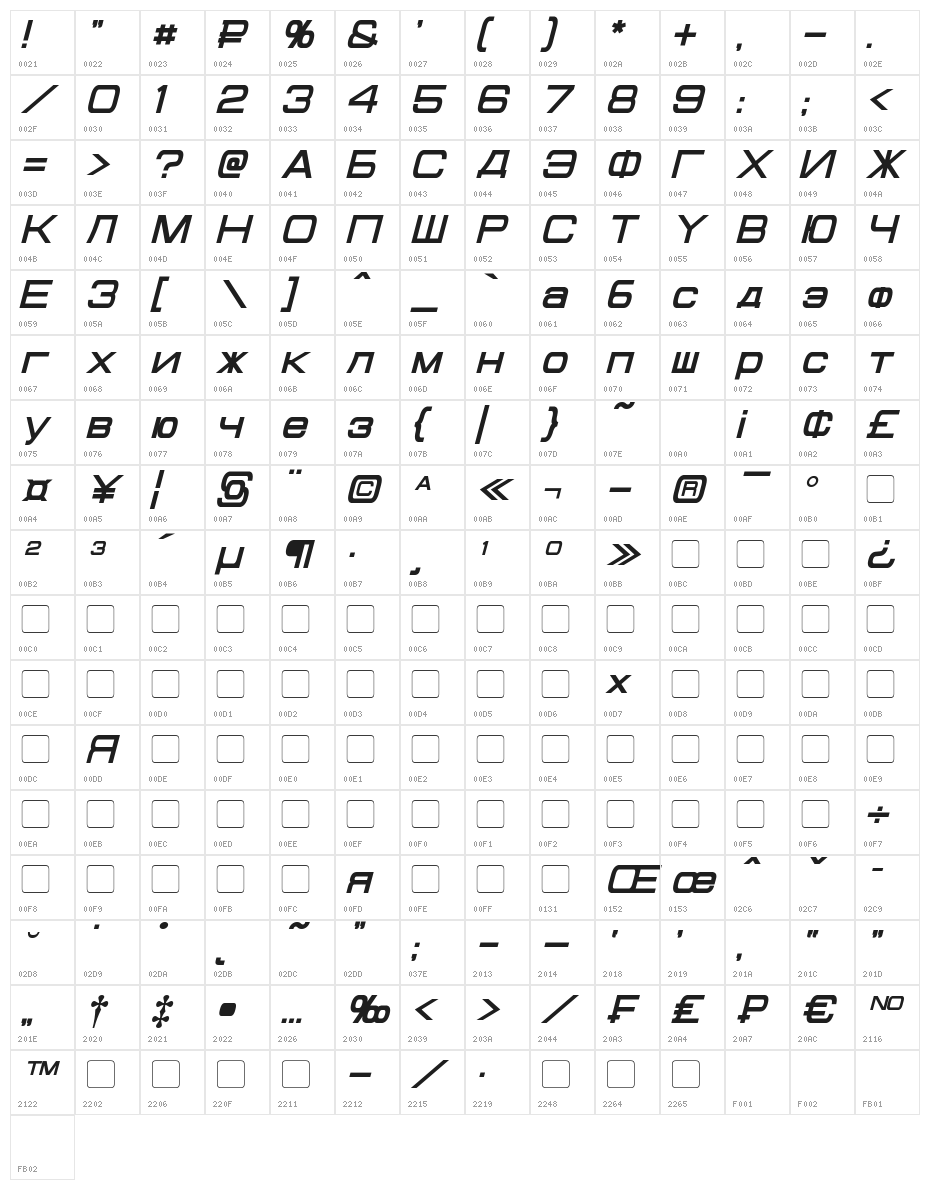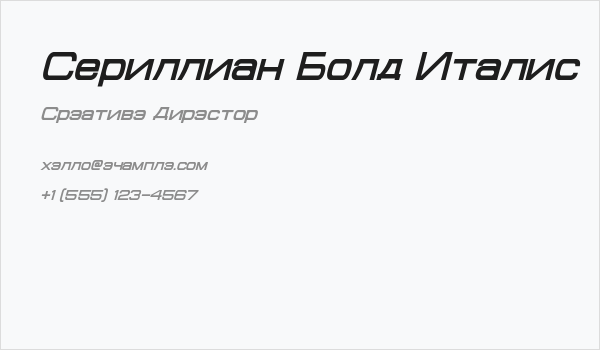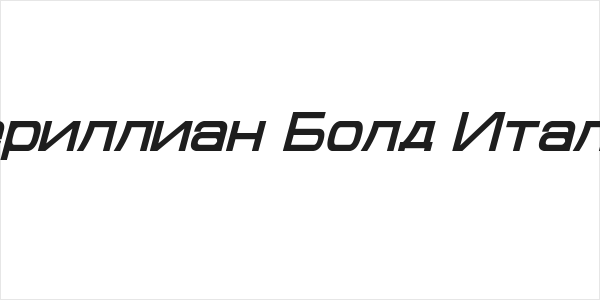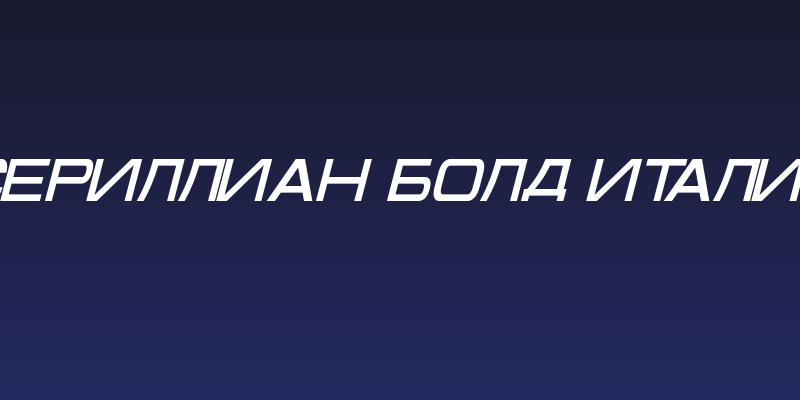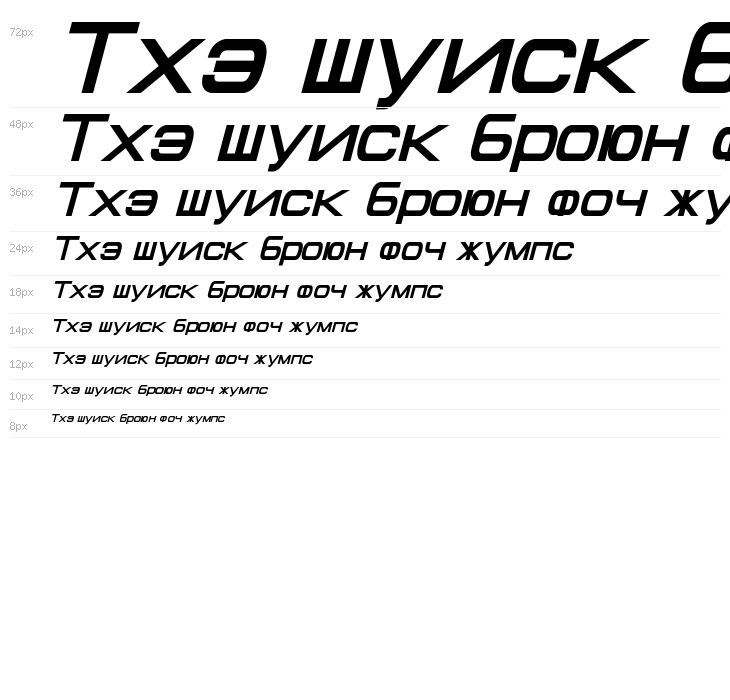
Cyrillian Bold Italic Font
Cyrillian Bold Italic Description
This font features a bold and italicized style with a modern and dynamic appearance. The characters are slanted, giving a sense of motion and energy. The strokes are thick, providing a strong presence, while the overall design maintains a sleek and contemporary look. The font includes both uppercase and lowercase Cyrillic letters, numbers, and a variety of special characters. Its bold nature makes it suitable for attention-grabbing headlines and titles, while the italicized form adds a touch of elegance and sophistication.
| Proposed Projects | Ideal for branding, advertising, and editorial design where a strong and modern presence is desired. |